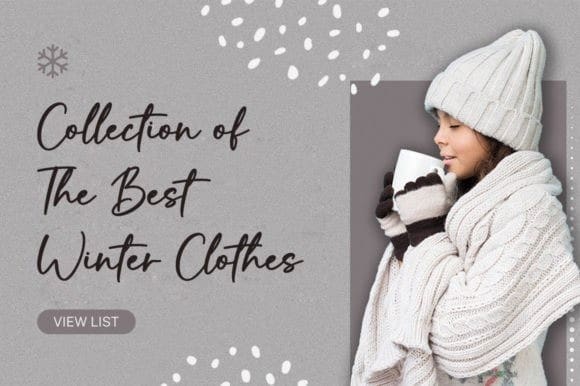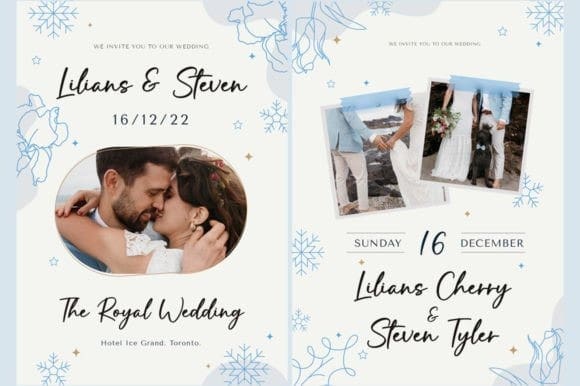
Winterlake Handwritten Font
Winterlake Handwritten Font is a delicate, elegant, and flowing handwritten font. It has beautiful and well-balanced characters and as a result, it matches a wide pool of designs.